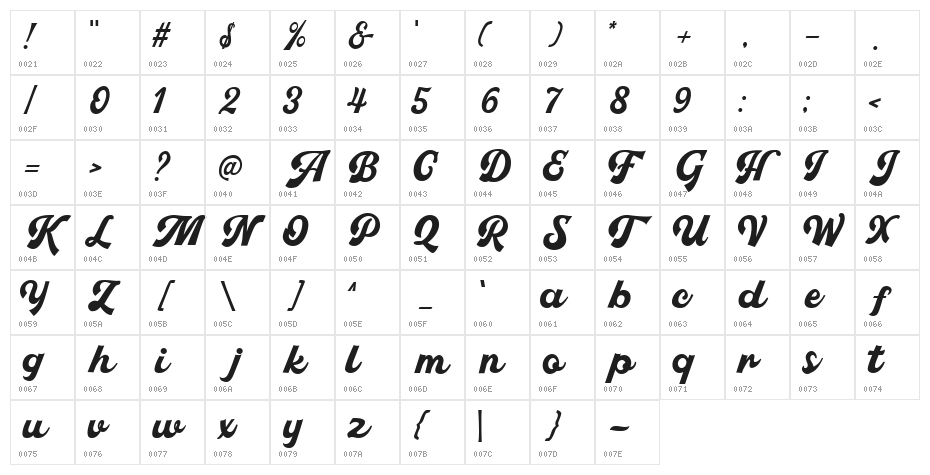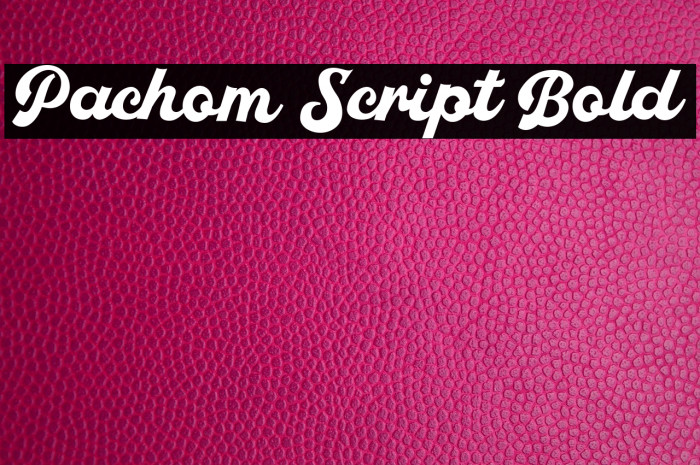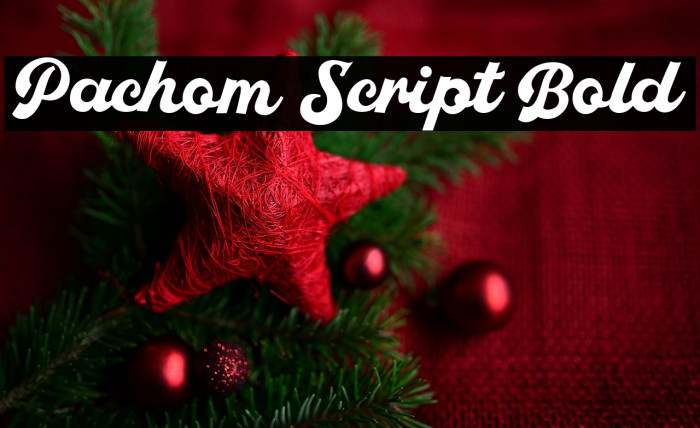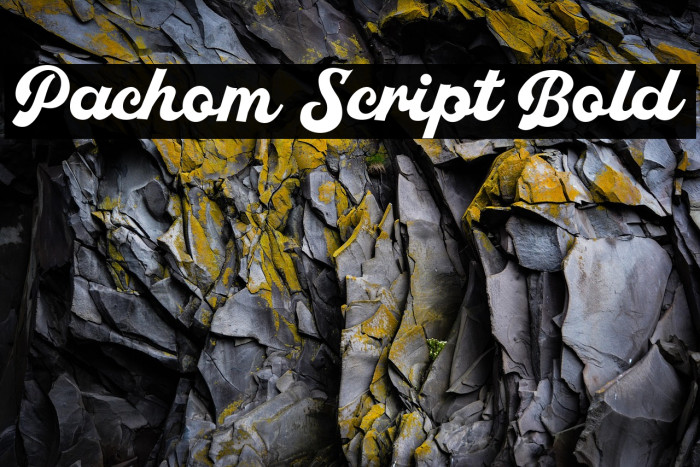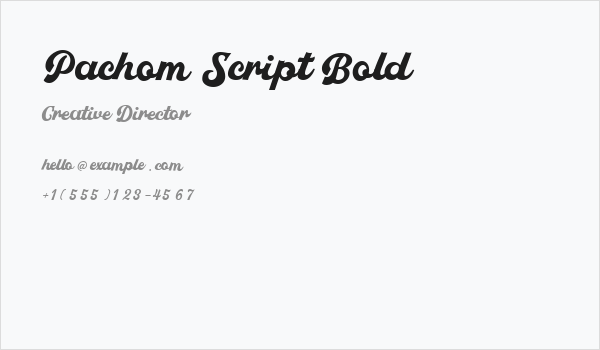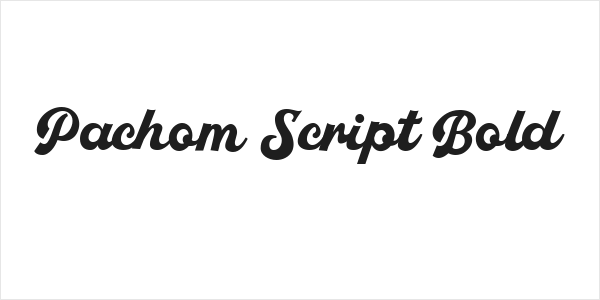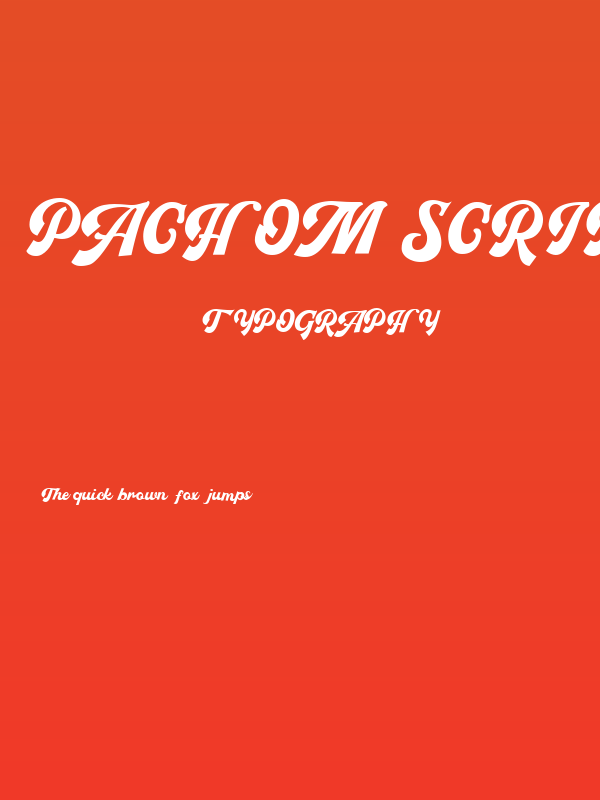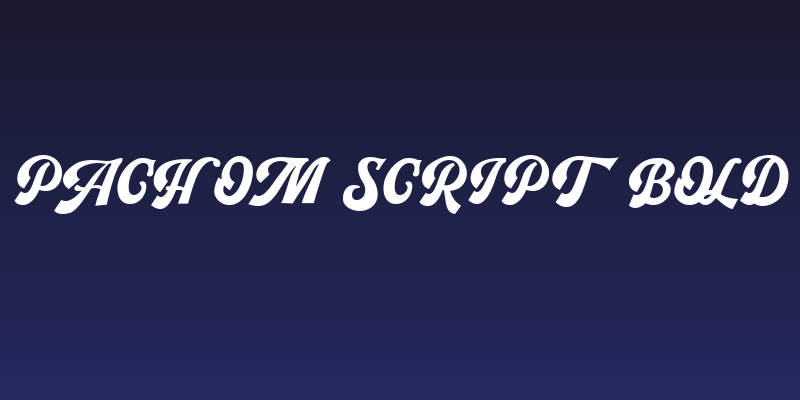
Pachom Script Bold Font
Pachom Script Bold Description
This font exudes a bold and dynamic script style, characterized by its flowing, cursive letterforms that convey a sense of elegance and movement. The uppercase letters are particularly striking, with their sweeping curves and pronounced slants, while the lowercase letters maintain a consistent rhythm and fluidity. The numerals and special characters are crafted with the same attention to detail, ensuring a cohesive appearance across all glyphs. The font's bold weight enhances its presence, making it suitable for impactful designs. Its overall style is both classic and decorative, ideal for projects that require a touch of sophistication.
| Overall Style | Classic, Decorative |
| Use Case | Logos, Headlines, Invitations |
| Proposed Projects | Ideal for wedding invitations, branding, logo design, and elegant packaging. |